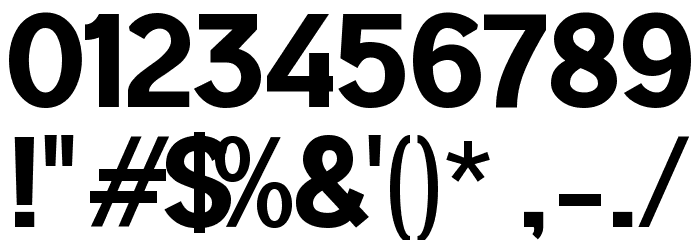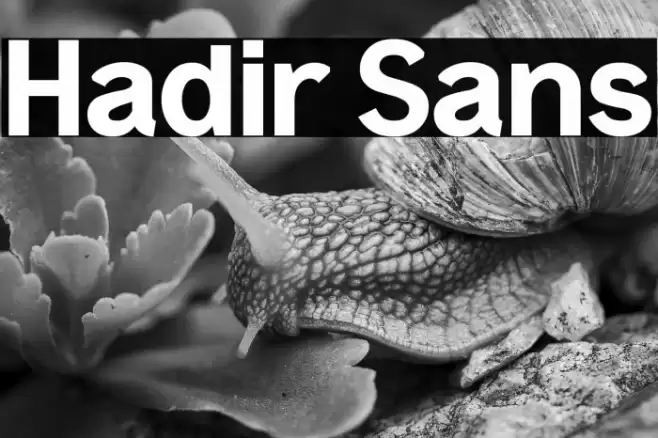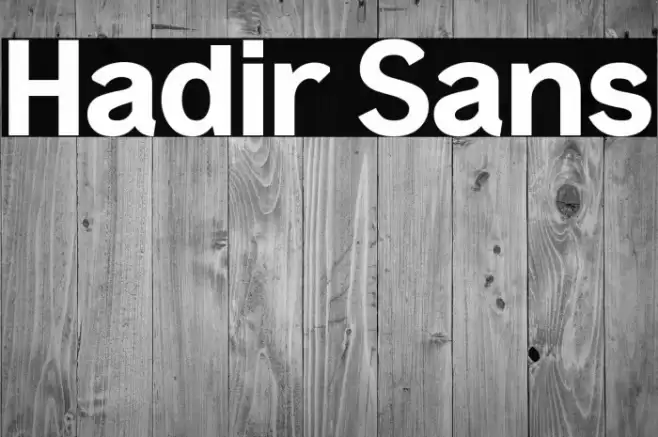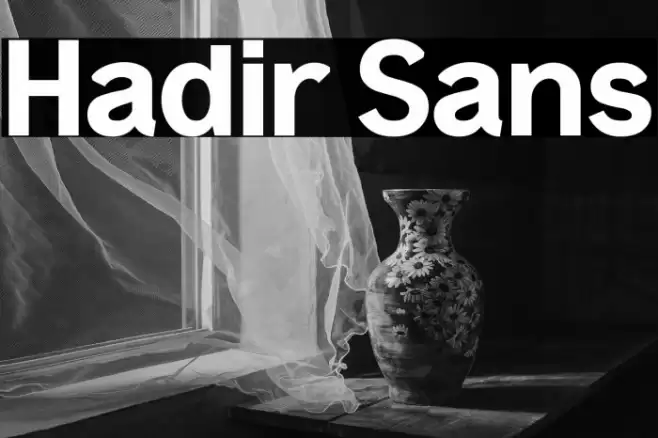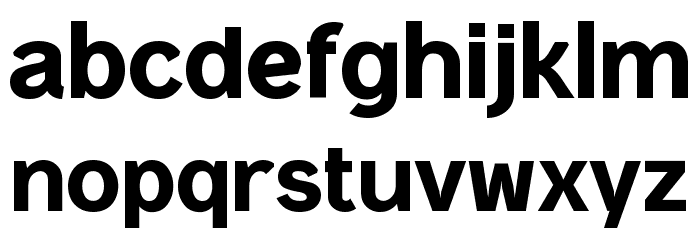
Hadir Sans Font
Hadir Sans Description
This typeface features a clean and modern sans-serif design, characterized by its bold and uniform stroke weight. The letters are well-proportioned with a consistent height, making it highly legible. The uppercase and lowercase letters maintain a harmonious balance, while the numerals are clear and distinct. The special characters are designed to complement the overall style, ensuring versatility across various applications. The font's simplicity and clarity make it suitable for both digital and print media.
| Use Case | Headlines, Logos, Web design |
| Proposed Projects | Ideal for branding, advertising, web design, and editorial projects where clarity and modernity are essential. |